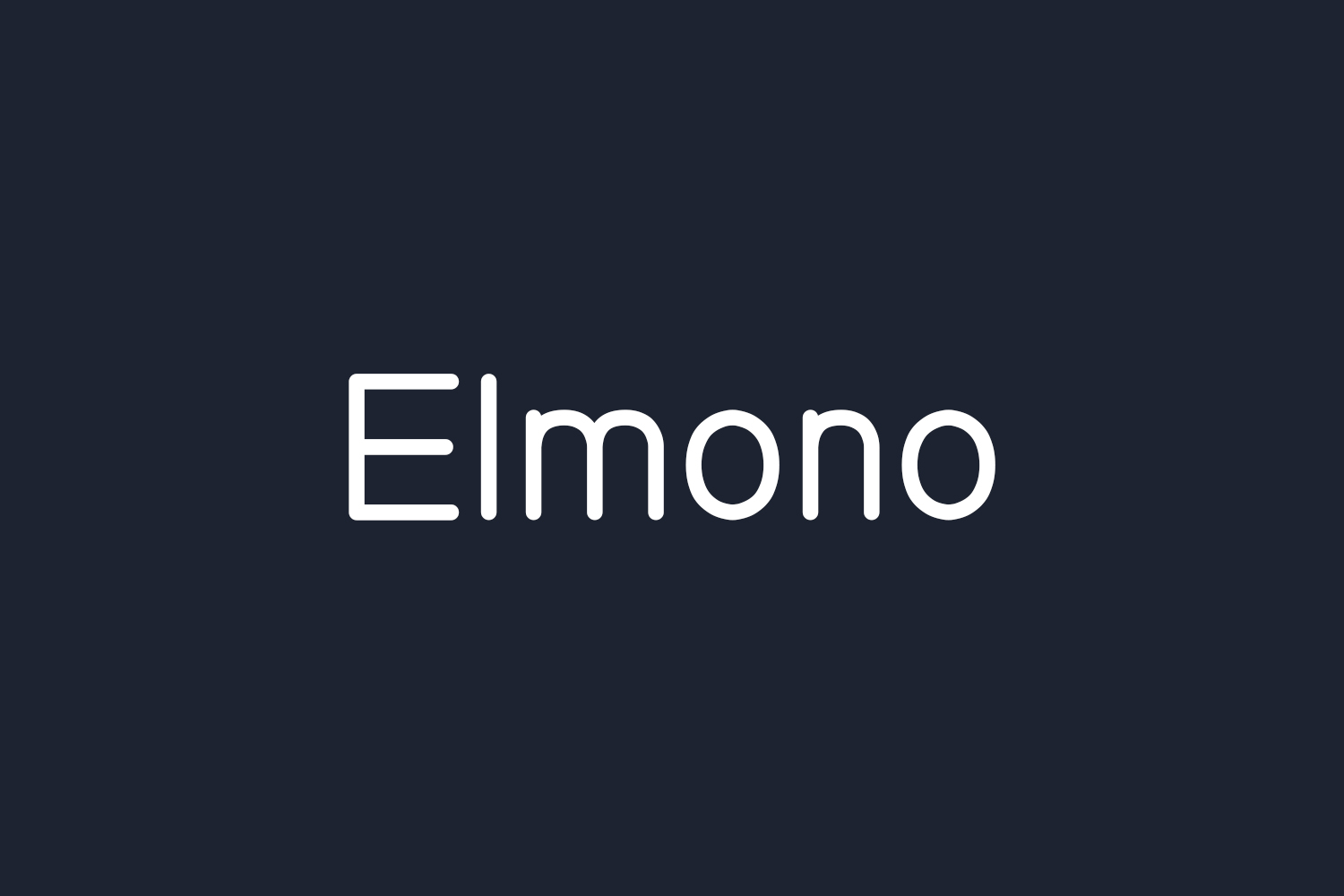
Elmono Free Font is a modern and clean sans serif font. Its versatility and neat vibe will brighten up each of your designs. Have fun with this beautiful font and explore its endless variations. Elmono Free Font was designed by Zanfonts and is free for personal use only. Please purchase the full version for commercial use.